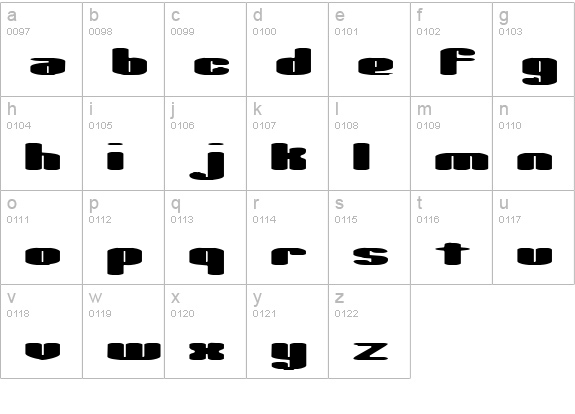
Introducing the magnificent and versatile Spacious BRK font - a true gem in the realm of typography. With its elegant and modern design, this font exudes a sense of sophistication and style that is perfect for a wide range of projects. The Spacious BRK font boasts a generous letter spacing, allowing each character to breathe and stand out with utmost clarity. Its clean lines and subtle curves create a harmonious balance, making it an excellent choice for both headlines and body text. Whether you're working on a branding project, designing a logo, crafting a website, or even creating eye-catching social media posts, the Spacious BRK font is here to elevate your work to new heights. Its versatility knows no bounds, seamlessly adapting to any design concept or creative vision. But what truly sets the Spacious BRK font apart is its accessibility and affordability. This remarkable font is available for free download exclusively at FontsMarket.com. Yes, that's right - you can enjoy the sheer brilliance of Spacious BRK without spending a dime. So why wait? Unleash your creativity and unlock the potential of your designs with the Spacious BRK font. Download it today from FontsMarket.com and experience the magic of this remarkable typeface.